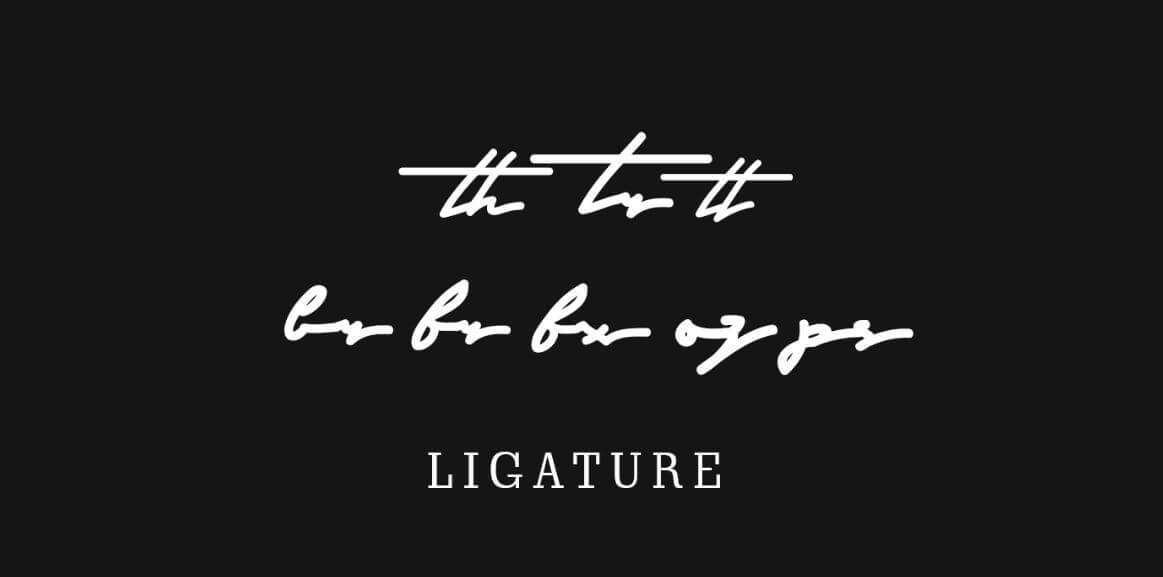
Rendering Font
Rendering font is a trendy signature font. This font made with superb combining of each character. It looks like rolling back fashioned and can be used for your entire undertaking wishes. It is design and shared by way of arendxstudio.
Style Of Rendering Font